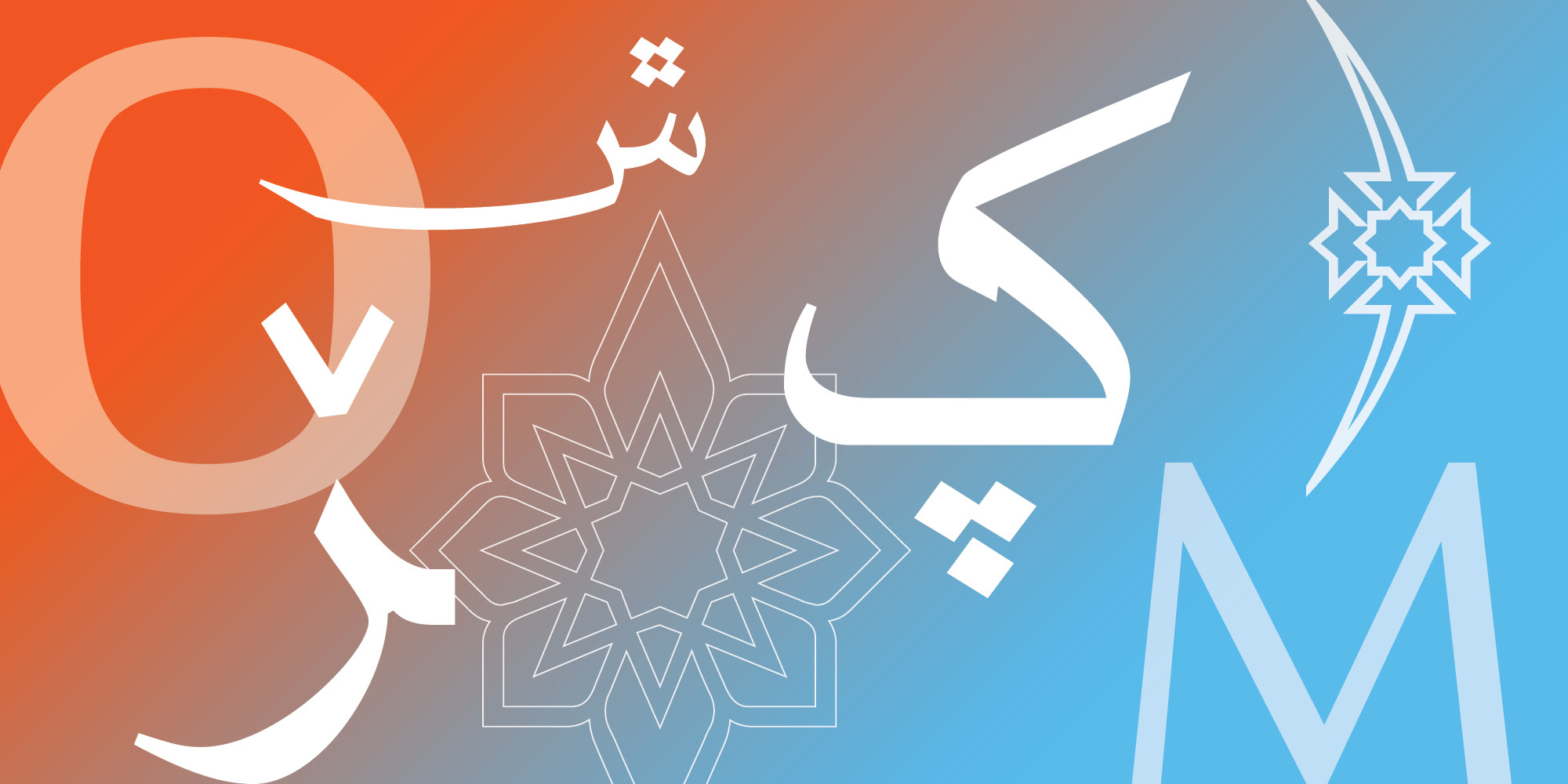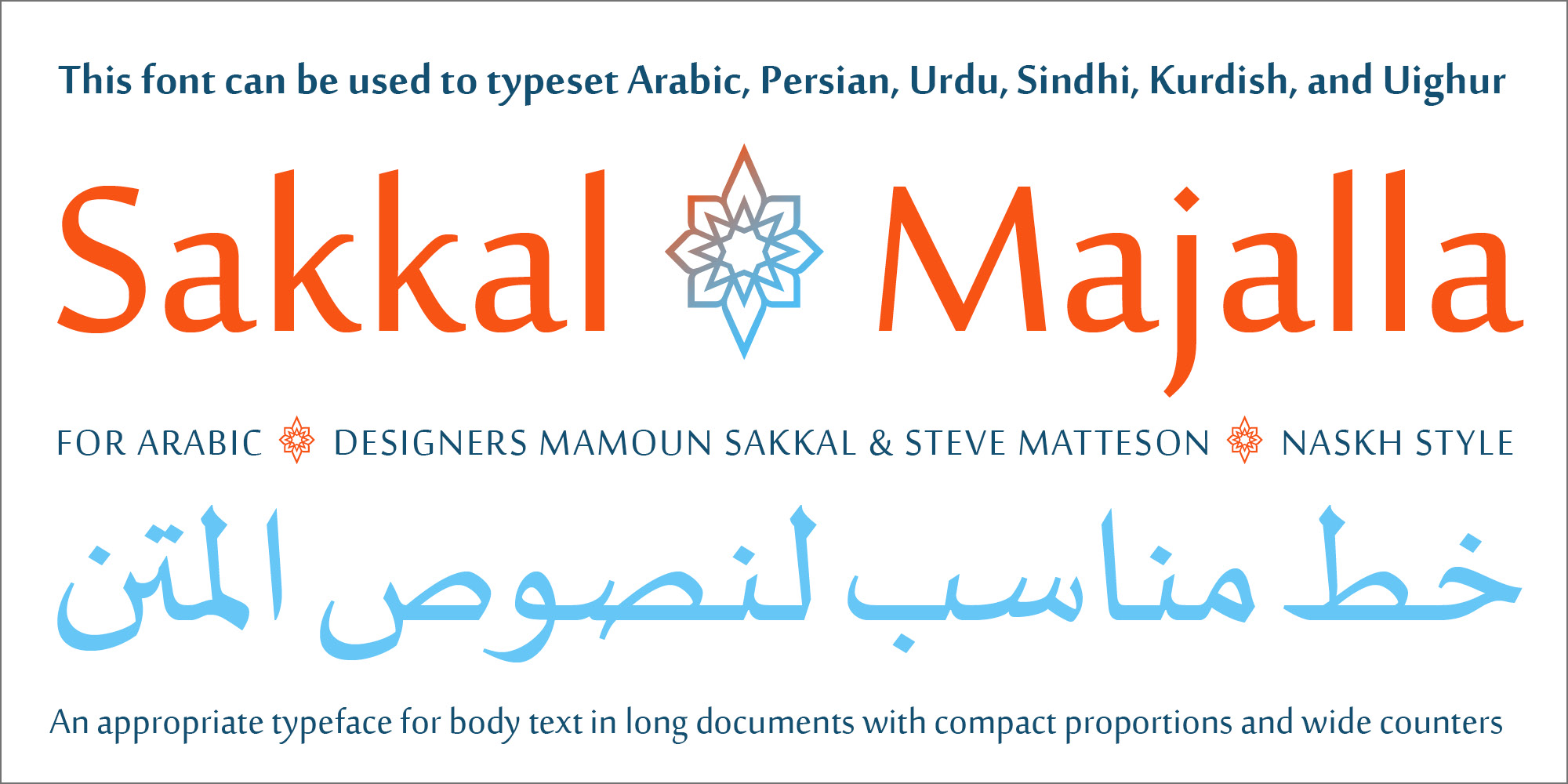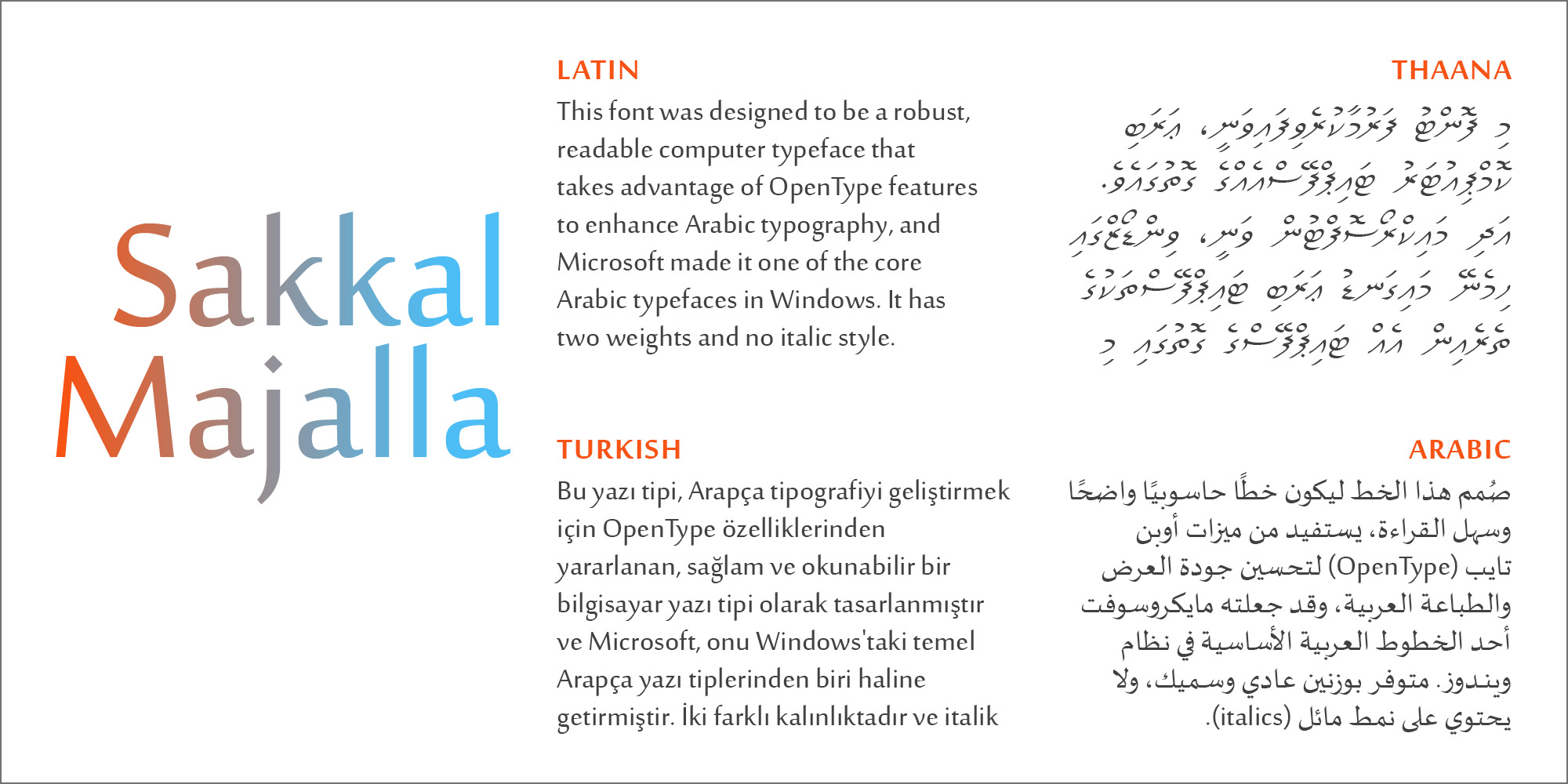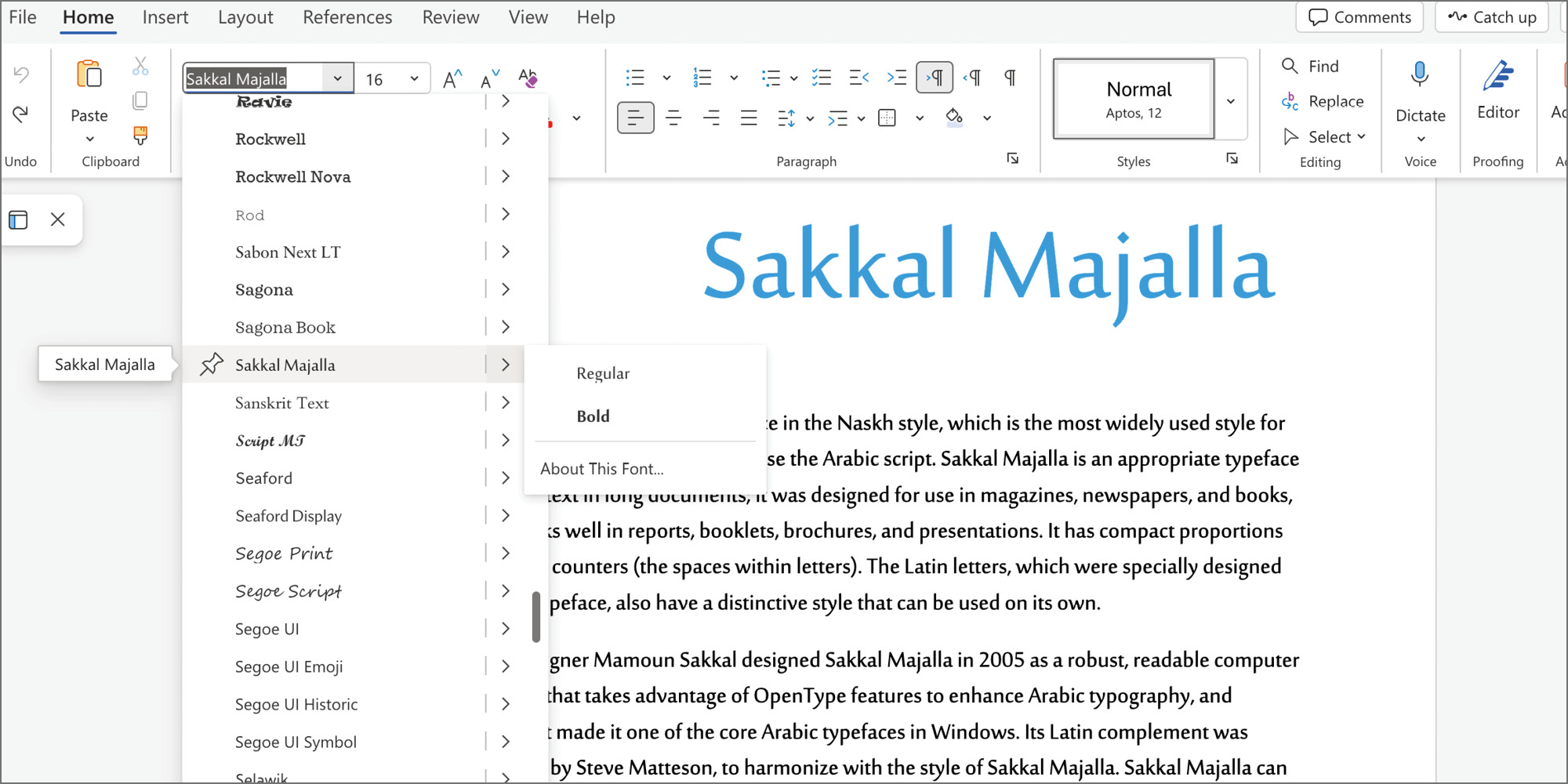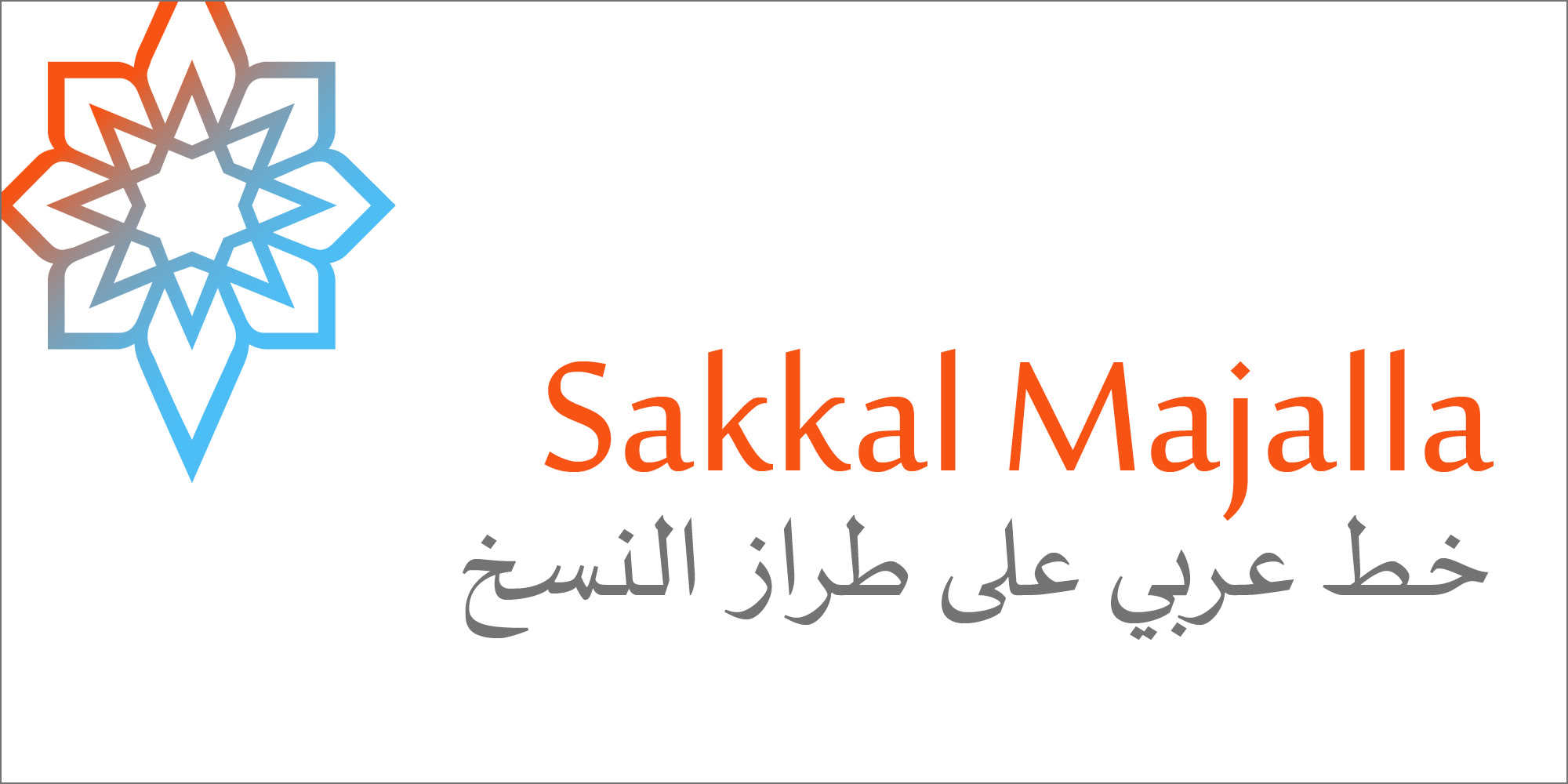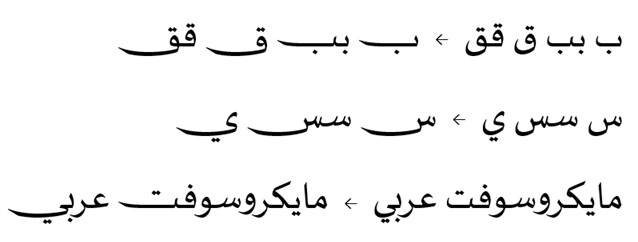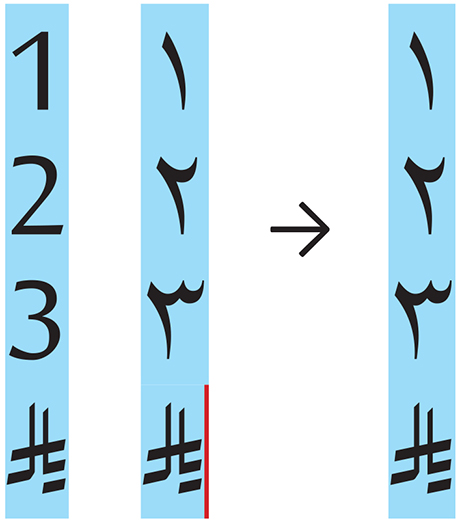
Sakkal Majalla font family
Sakkal Majalla is an Arabic typeface in the Naskh style, which is the most widely used style for typesetting many languages that use the Arabic script. Sakkal Majalla is an appropriate typeface for body text in long documents; it was designed for use in magazines, newspapers, and books, so it works well in reports, booklets, brochures, and presentations.
It has compact proportions and wide counters (the spaces within letters). The Latin letters, which were specially designed for this typeface, also have a distinctive style that can be used on its own.
Type designer Mamoun Sakkal designed Sakkal Majalla in 2005 as a robust, readable computer typeface that takes advantage of OpenType features to enhance Arabic typography, and Microsoft made it one of the core Arabic typefaces in Windows.
Its Latin complement was designed by Steve Matteson, to harmonize with the style of the Arabic. Sakkal Majalla can be used to typeset Arabic, Persian, Urdu, Sindhi, Kurdish, and Uighur. It has two weights and no italic style.
Sakkal Majalla stylistic sets
• SS01: Short Meem Tail: Short Meem tail on baseline instead of long descender tail.
Sakkal Majalla Short Meem Tail stylistic set example showing the Arabic letter Meem with a shortened tail that sits on the baseline, contrasted with the standard version that has a longer descender tail
• SS02: Double-Looped Medial Heh: Double-Looped medial Heh instead of the standard single V-shaped Heh.
Sakkal Majalla Double-Looped Medial Heh stylistic set example showing the Arabic letter Heh with a double-looped medial form, contrasted with the standard version that has a single V-shaped form
• SS03: Swash: Extending the endings or tails of letters capable of elongation, such as “Beh” and “Lam”.
Sakkal Majalla Swash stylistic set example showing the Arabic letters Beh and Lam with extended, elongated tails and endings in a decorative swash style, contrasted with the standard versions that have shorter, non-extended forms
• SS04: Saudi Riyal symbol variant with a width that aligns with Arabic Indic numerals; default Saudi Riyal symbol aligns with Latin numeral widths. This difference is subtle, but is necessary when using tabular spacing.
Sakkal Majalla SS04 stylistic set example comparing the Saudi Riyal symbol in two variants: the top row shows the standard version aligned with Latin numeral widths, and the bottom row shows the alternative variant with width adjusted to align with Arabic Indic numerals, demonstrating the subtle but important difference for tabular spacing
Designers Arabic: Mamoun Sakkal & Latin: Steve Matteson